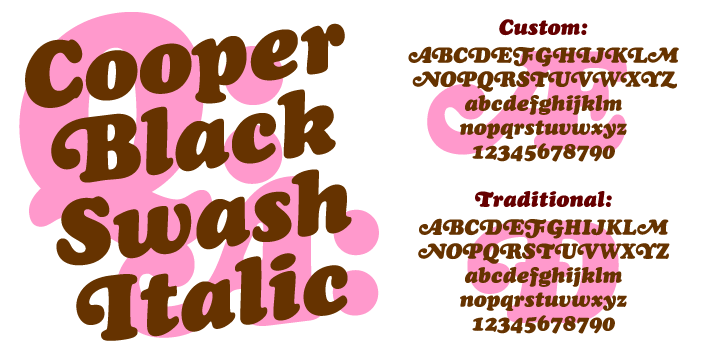
Cooper Black Swash Italic
Designed by: Oswald Bruce Cooper, Ian Lynam
Designed when: 2005
Letterform design based on: Cooper Black
Contained in Categories: Decorative & Display, Legible, Script
There has never been a publicly available digital version of Cooper Black’s original swash characters.
This font updates and complements the fun, friendly Cooper Black Italic, an old Chicago-style display typeface. It is great for retro designs and forward-thinking contemporary graphic design.
Two versions of the typeface are included in the download- a digital interpretation of Oz Cooper’s original swash caps with a full upper and lower case character set, and another with swash characters for many of the capitals where swashes were not originally used (in particular, the I, K, L, W, and X).